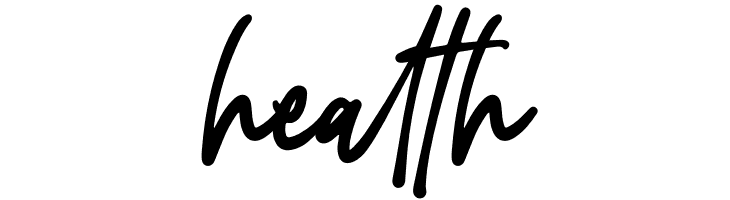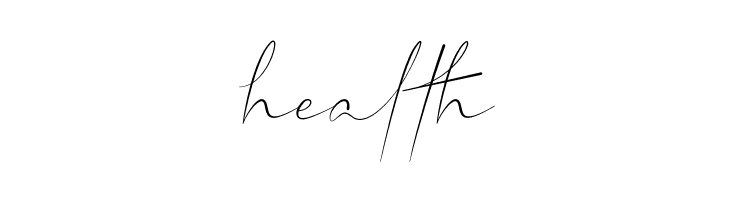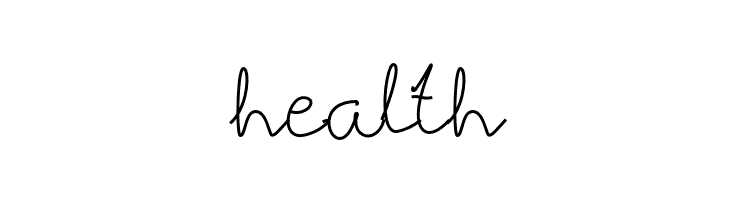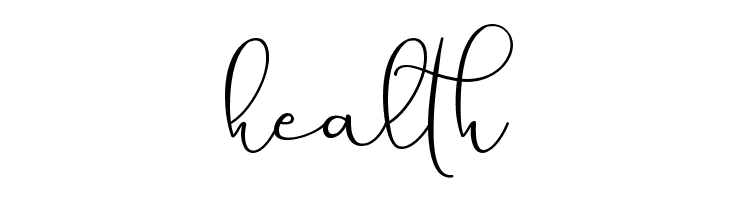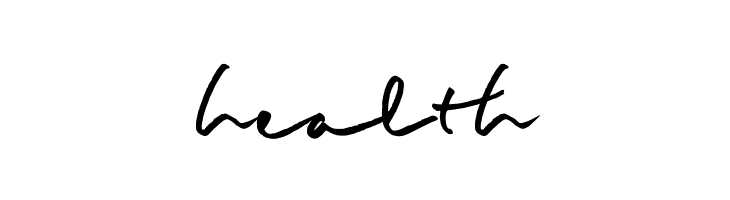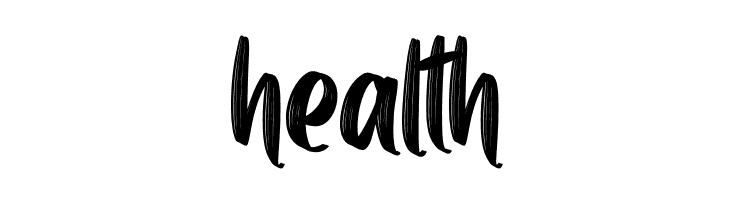
A graceful, cursive font with a signature-like style.
A flowing, cursive font with elegant, interconnected letters.
A modern, elegant handwritten script with fluid, connected letterforms.
An elegant, flowing script font with a sophisticated, handwritten style.
A fluid, elegant script font with a natural handwritten style.
A flowing, cursive font with elegant, handwritten signature style.
An elegant, flowing script font with artistic loops and playful embellishments.
A casual, handwritten font with a natural flow and moderate stroke thickness.
A textured, hand-drawn font with whimsical loops and curves.
A bold, textured brush font with an artistic and expressive style.